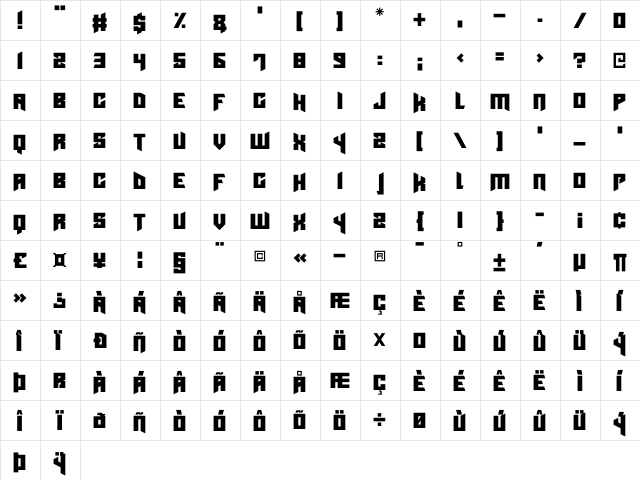
Cyberpunks Regular
Design Context for Cyberpunks Typeface
Cyberpunks channels digital-age aesthetics through its sharp, structured letterforms — ideal for brands that want to signal innovation.
Pro Tip: Use Cyberpunks in combination with a neutral sans for body text. Let it define the brand voice in headlines while keeping reading comfortable elsewhere.